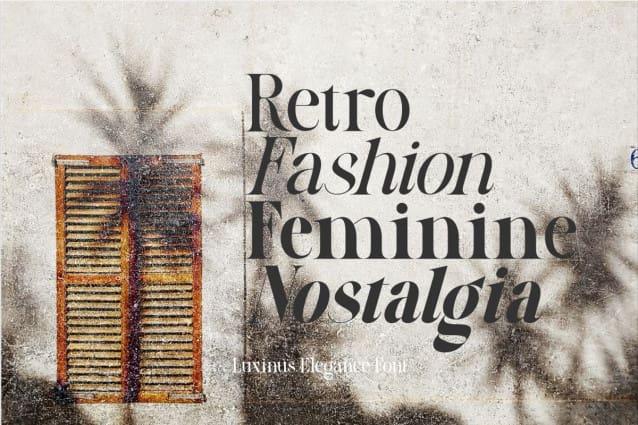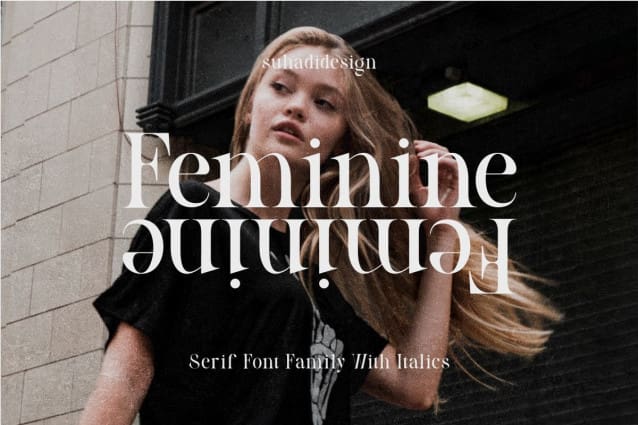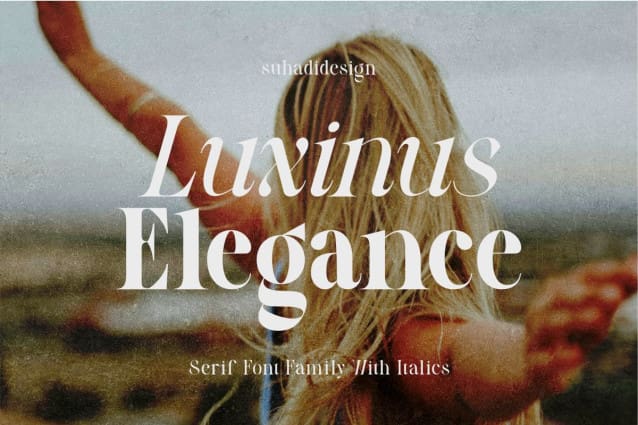
Luxinus Elegance Font
Luxinus Elegance font is an elegant and stylish serif font family. With a modern and elegant style, there are 4 font families available, namely LuxinusElegance, Luxinus Elegance Italic, LuxinusElegance Bold and LuxinusElegance Bold Italic, which are the popular fonts in the market. We keep this font looking beautiful, classy, ​​stylish. It is a great choice for magazines, designs, books, publications, branding, brand names, business cards, social media, luxury design, journalism, branding, beauty and other projects. It is here to improve the quality of your designs.